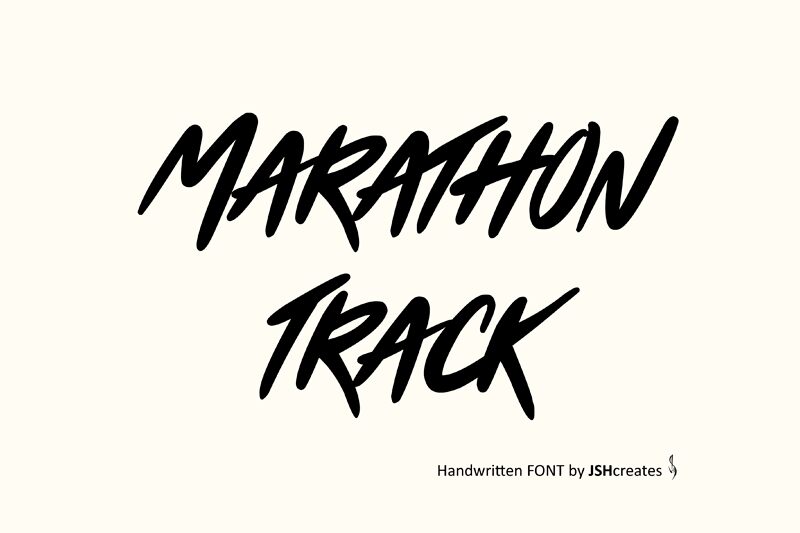
Marathon Track
Marathon Track font by JSH creates is a free handwritten font for delivering the greats of authentic penmanship. Its characters have tall uniform height with slight slants and curvatures reminiscent of calligraphy pens. Letters connect perfectly with each other displaying a neat clean look that best suits casual/laid back projects.
Utilize Marathon Track to your advantage in logo designs, banners, body texts, book covers, packaging, magazine covers or pages, stationery items, social media posts/cover images (Facebook), and product descriptions.